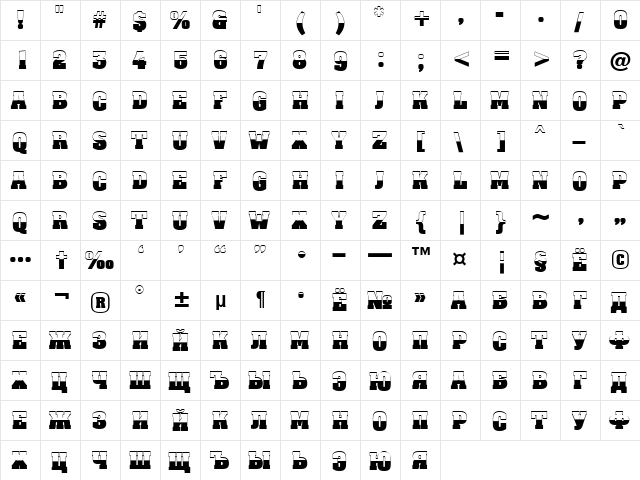
a_AssuanTitulB&W Bold
Design Context for a_AssuanTitulB&W Typeface
a_AssuanTitulB&W offers clean, dependable letterforms without strong stylistic allegiance, making it a practical choice for designers who need flexibility. Its bold stroke weight gives it real presence on the page.